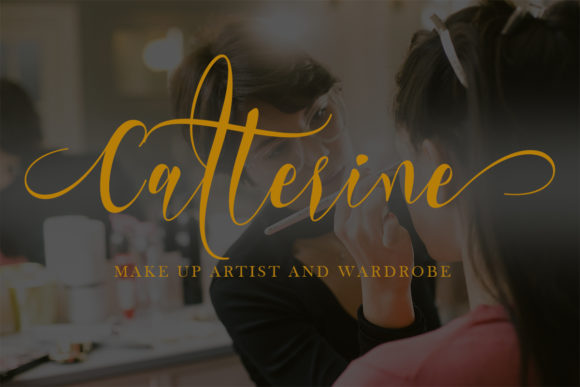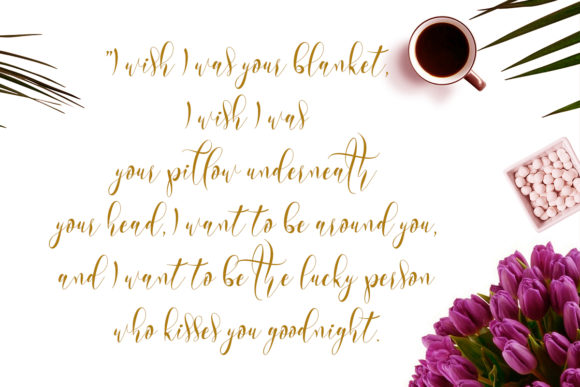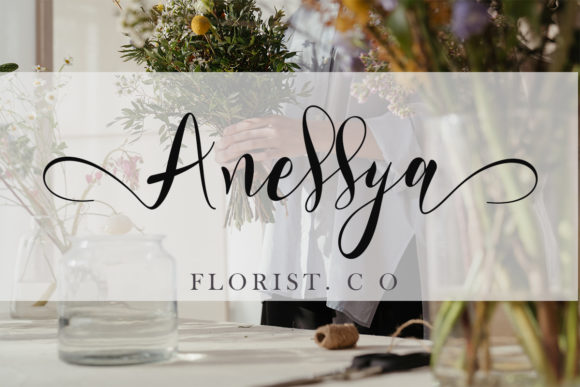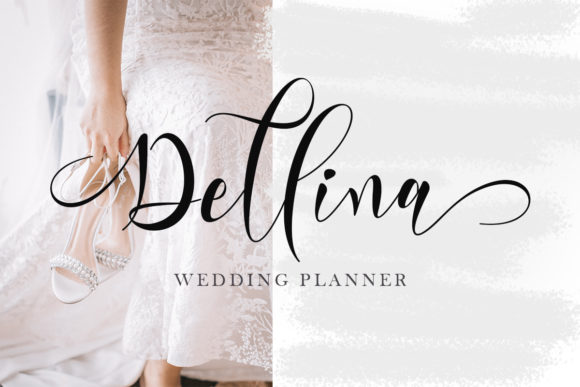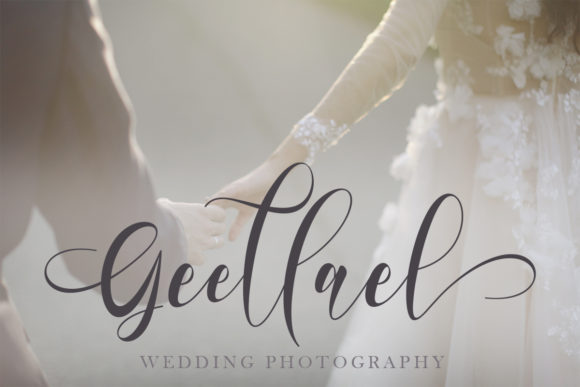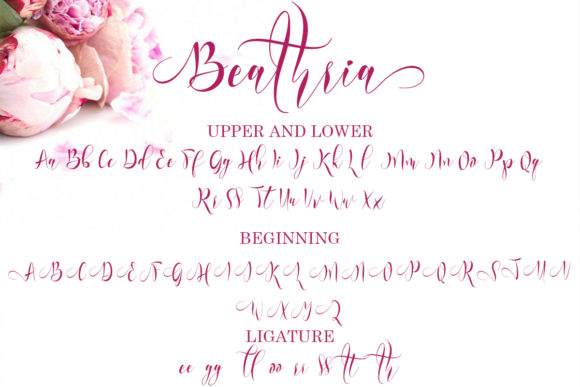
Introduction to Beathria Font
Beathria is an incredibly elegant and beautiful handwritten font.
Romantic and dreamy, this font is the perfect choice for each of your creations Beathria is PUA encoded which means you can access all of the glyphs and swashes with ease.
Key Features of Beathria Font